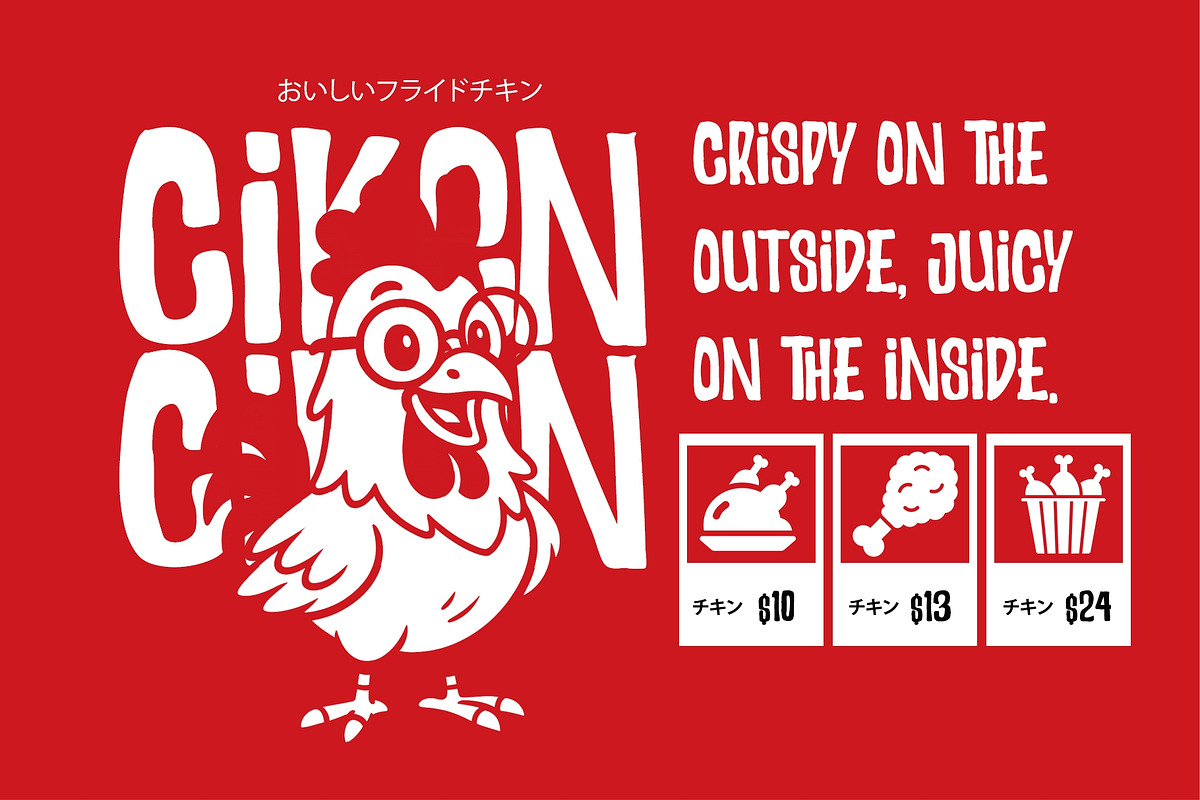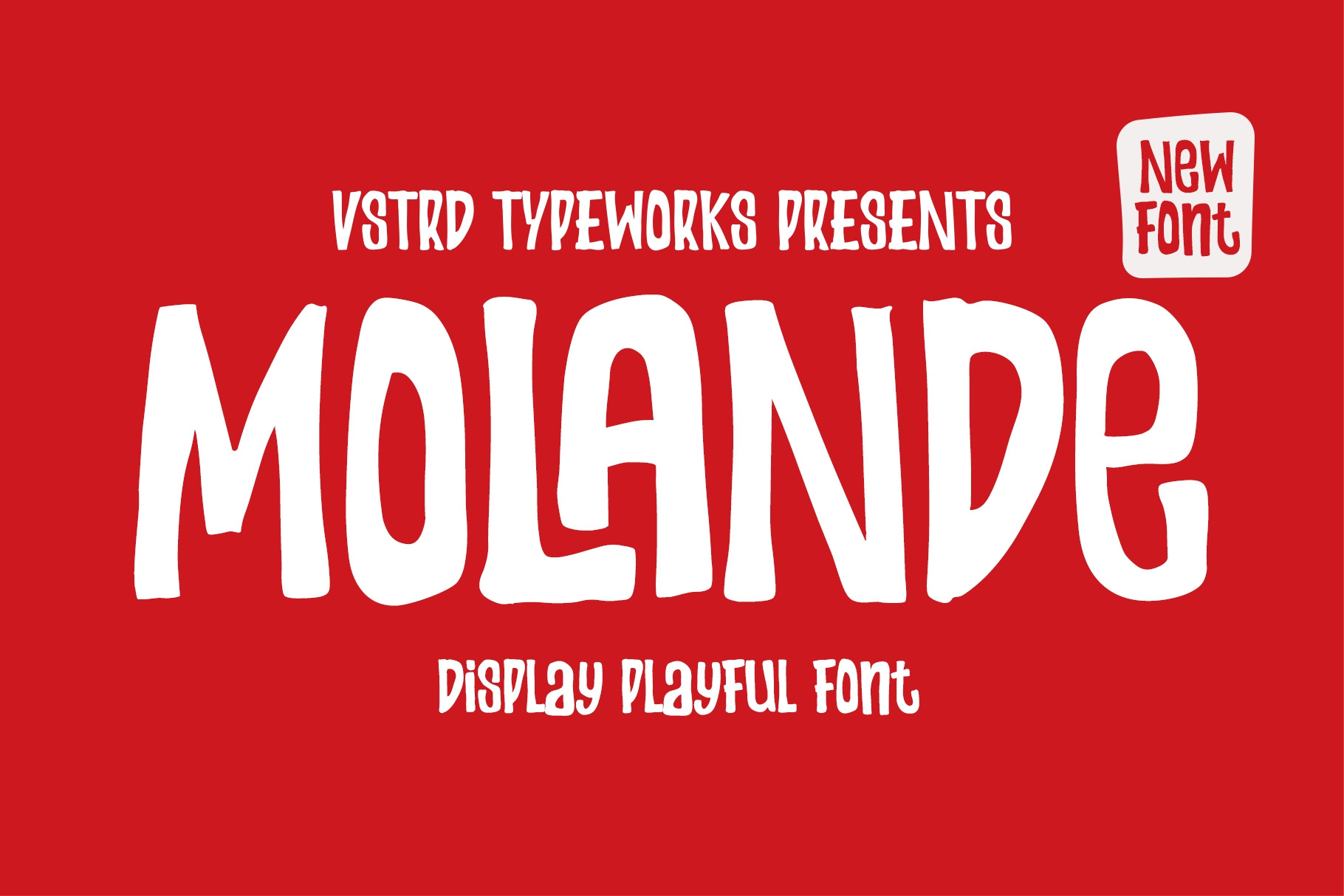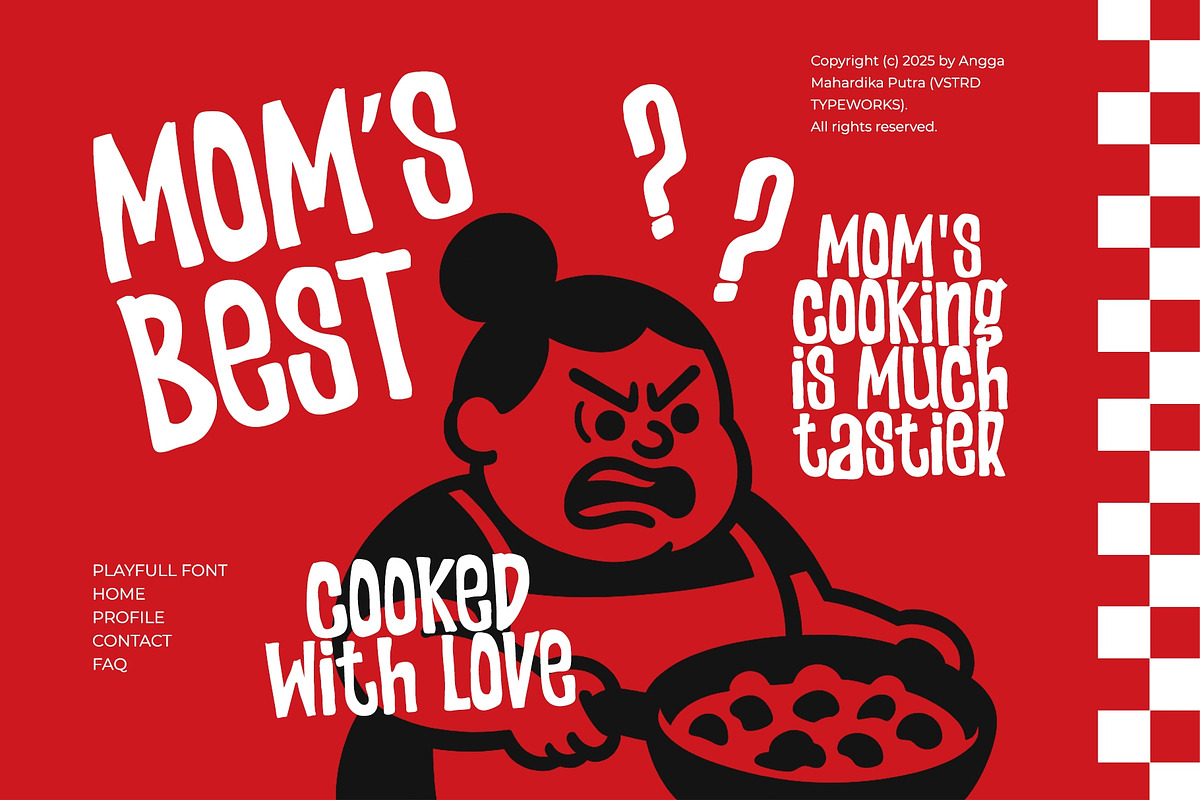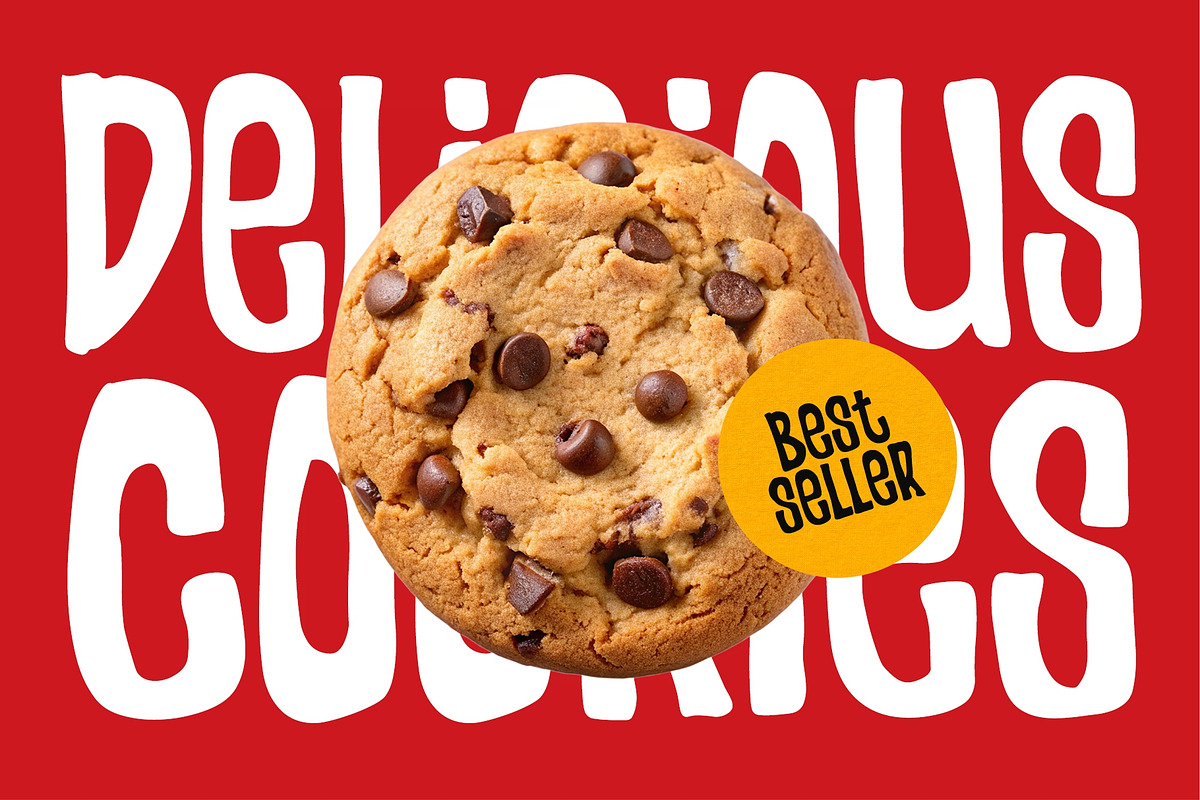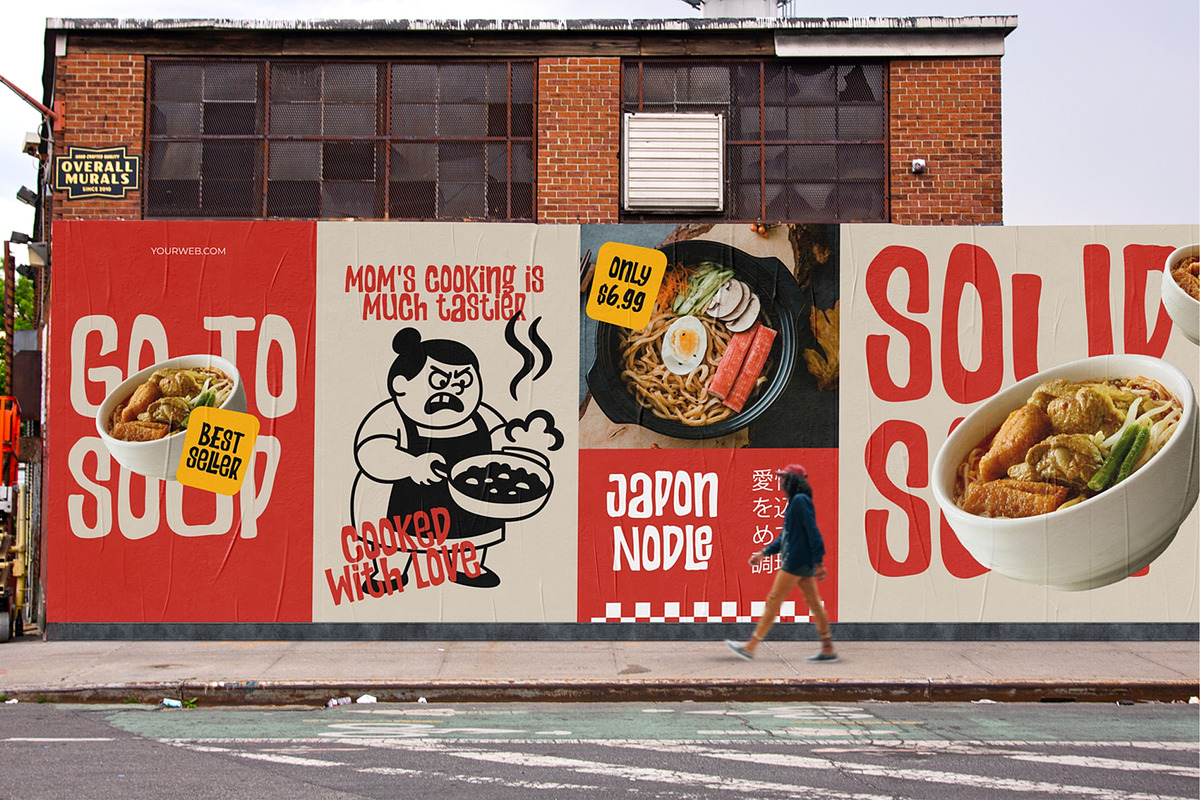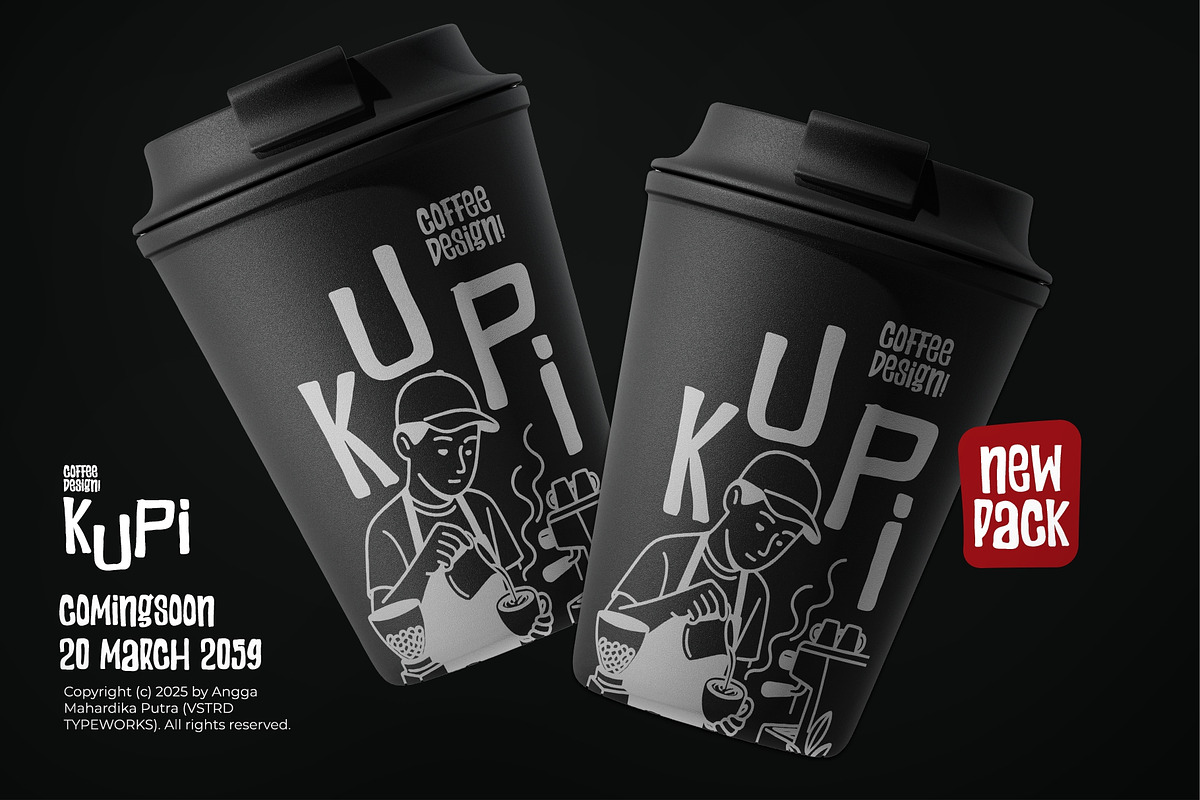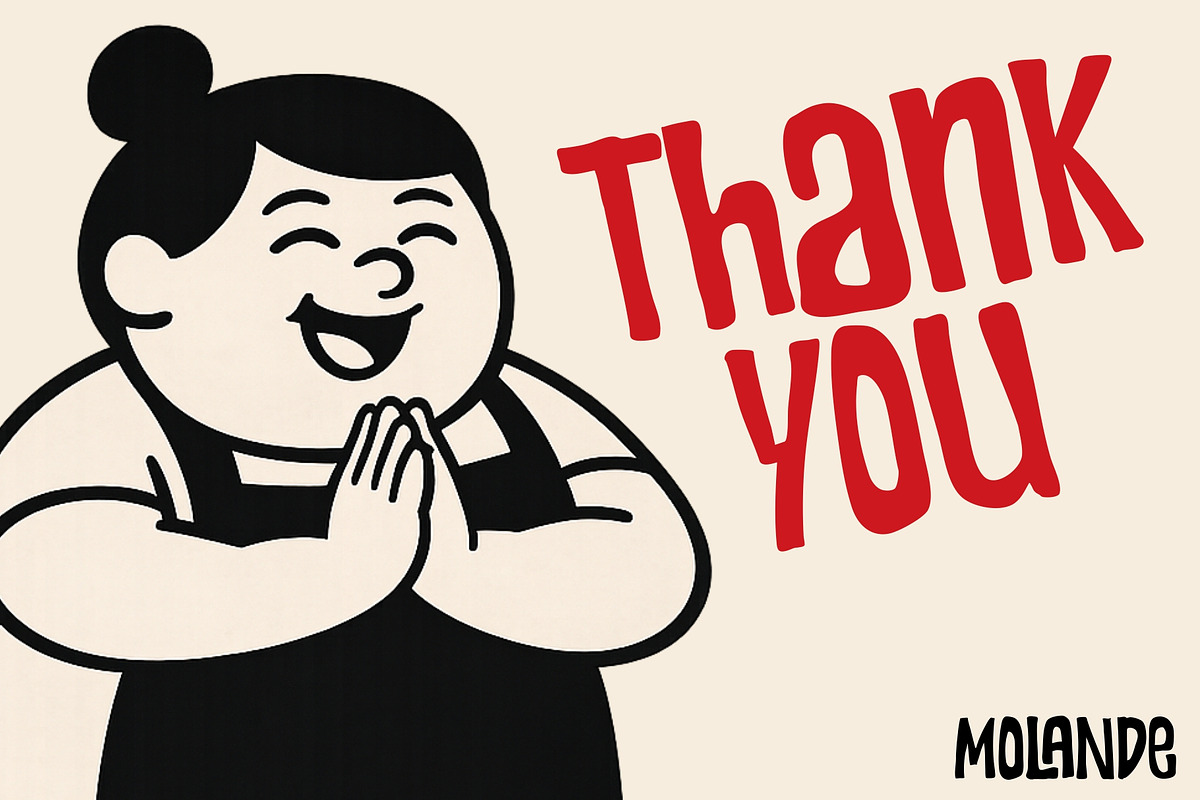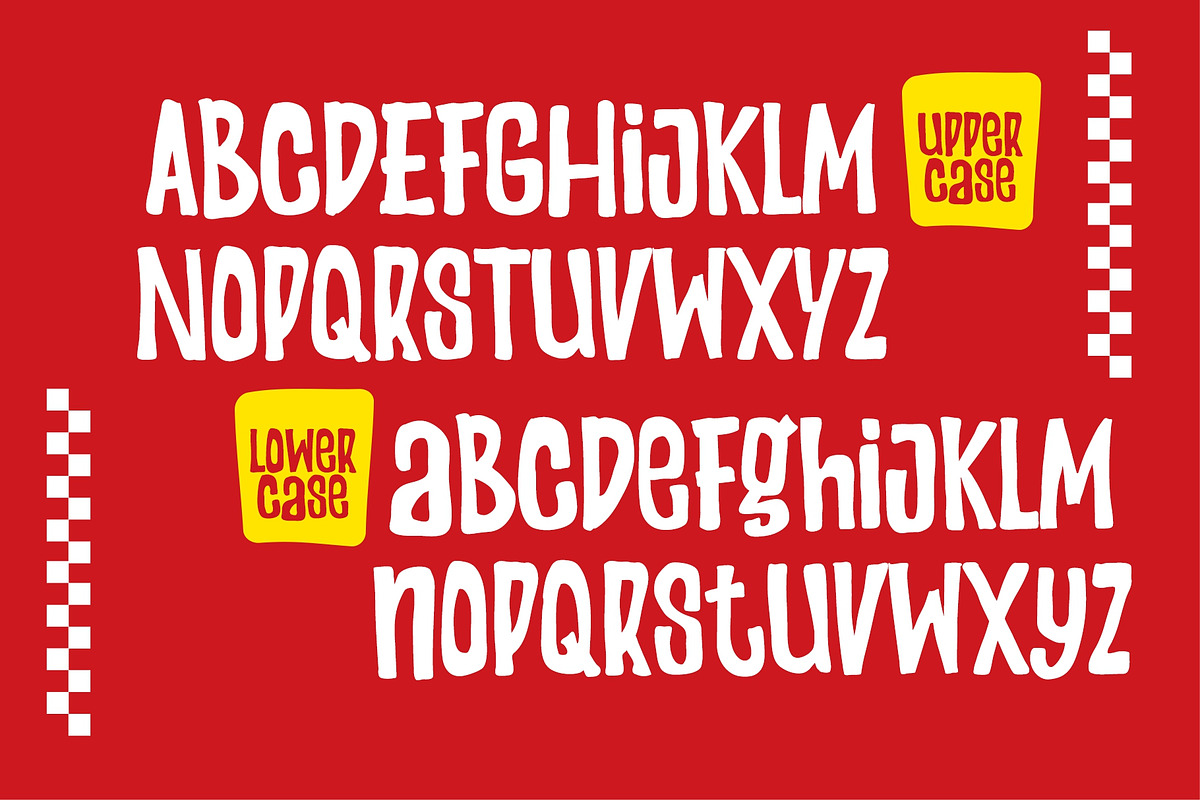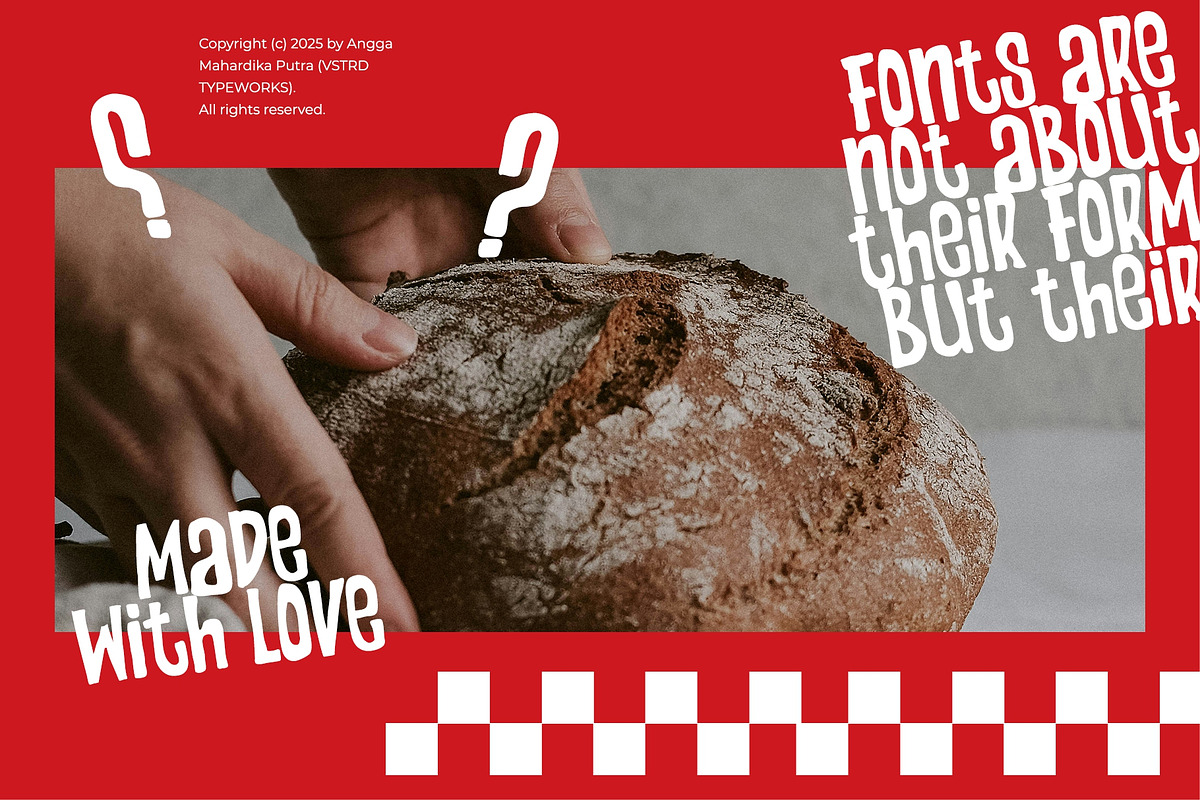
Molande - Display Playful Font
Molande is a bold display font with a playful, chunky personality. Designed to stand out, it brings loud shapes, fun curves, and confident character to your designs. Perfect for food branding, posters, packaging, logos, and headlines that need instant attention. Fun, expressive, and full of flavor. Molande makes your words impossible to ignore.
- All Caps Uppercase & Lowercase